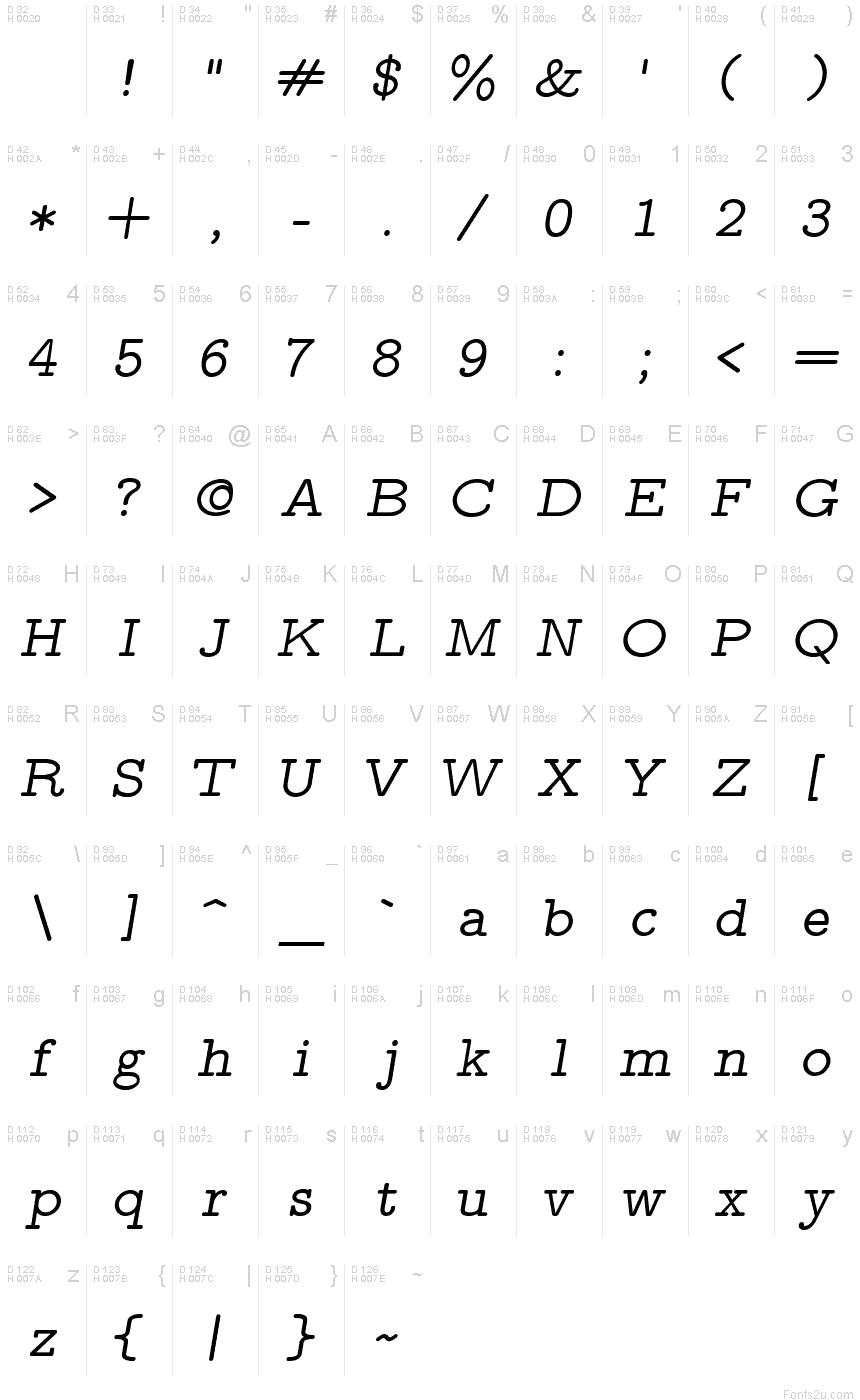
LMMonoProp10 Oblique by B. Jackowski and J. M. Nowacki of the TeX users groups is a free oblique serif with slim strokes and broad, gently curved serifs. A steady rightward lean gives the lettering controlled movement.
The typewriter look suits literary publishing, academic posters, and archival exhibitions that favor precision over flourish. On stationery or packaging for a bookshop, writing tool, or small press, the slanted forms can become a recognizable part of the product identity.